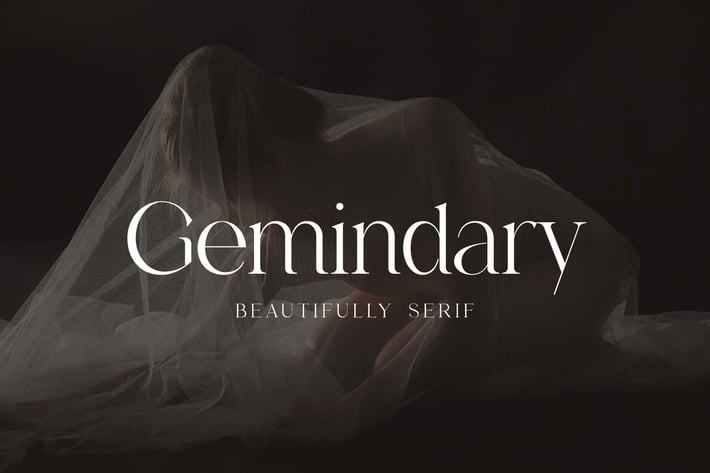
Gemindary Beautiful Serif Font
Introducing our new product the name is Gemindary Beautiful Serif Font. Gemindary Beautiful Serif Font that feels beautiful classy, elegant, and modern. This font is perfectly suited for a wide variety of projects, such as signature, stationery, logo, wedding, typography quotes, magazine or book covers, website headers, clothing, branding, packaging design, and more. Also, fashion-related branding or editorial design displays both masculine and feminine qualities.